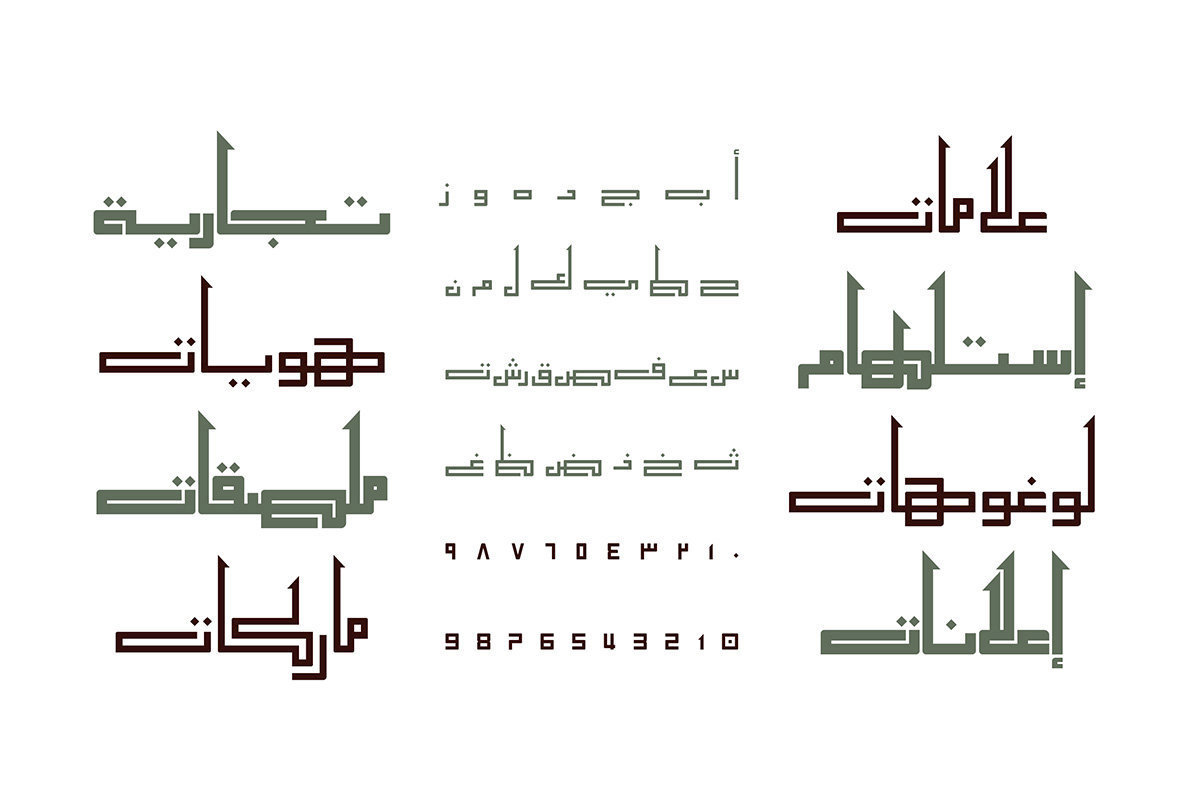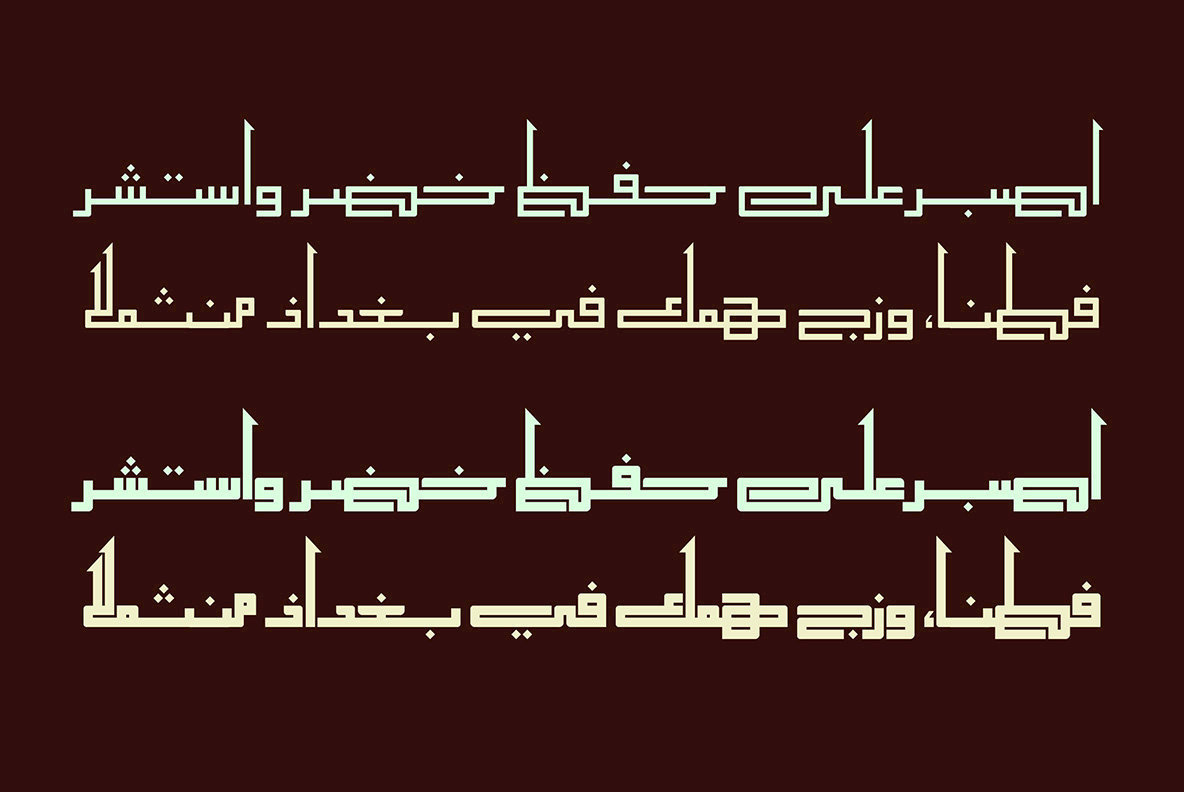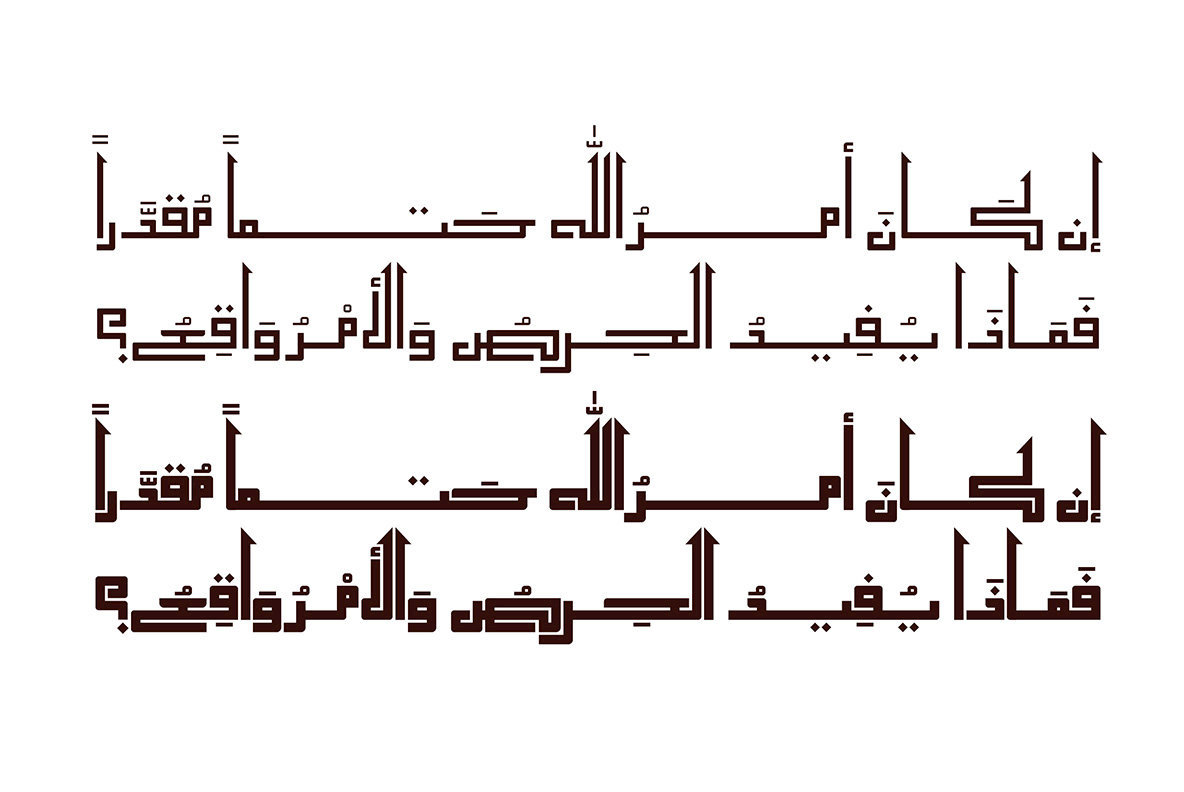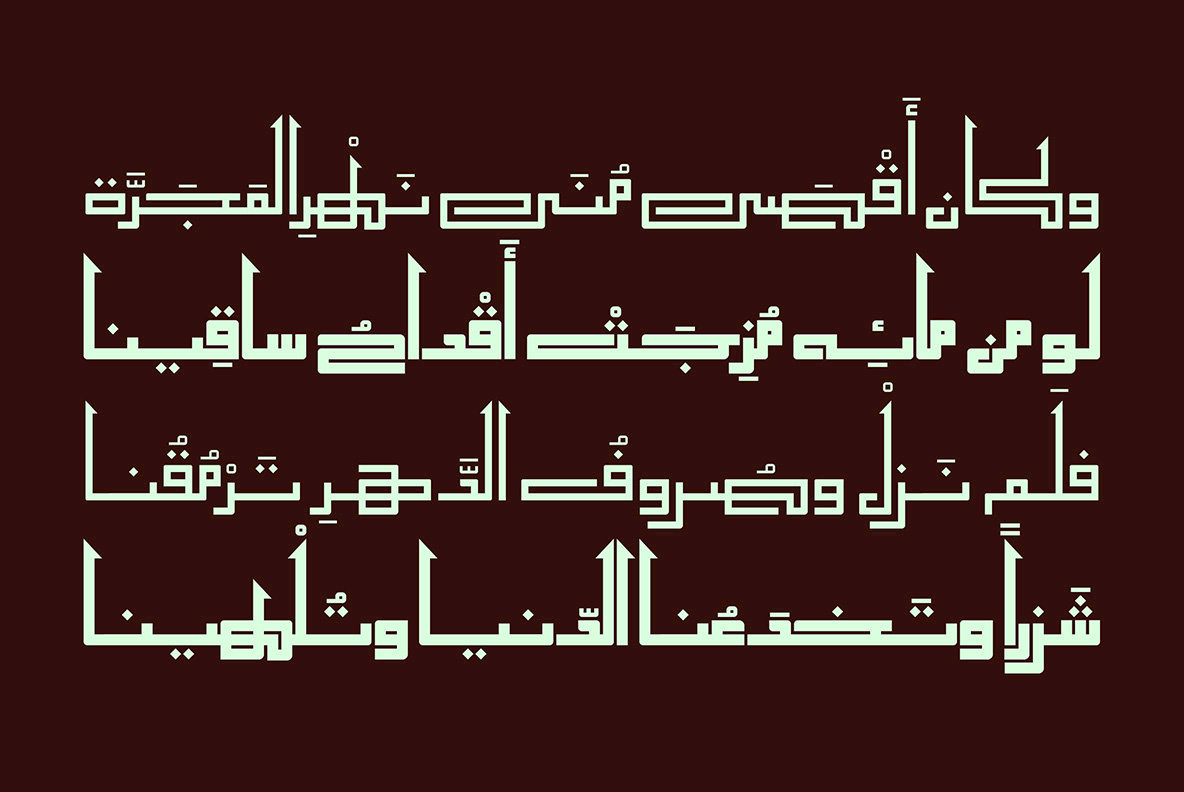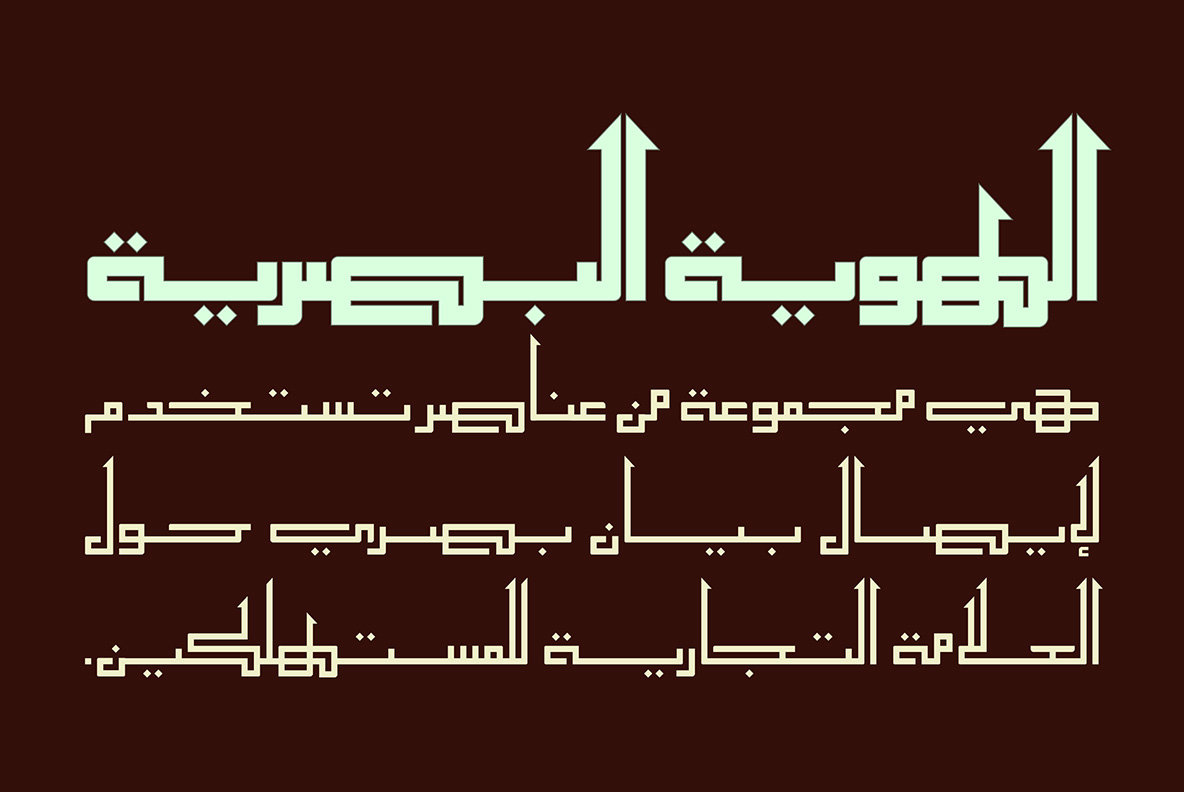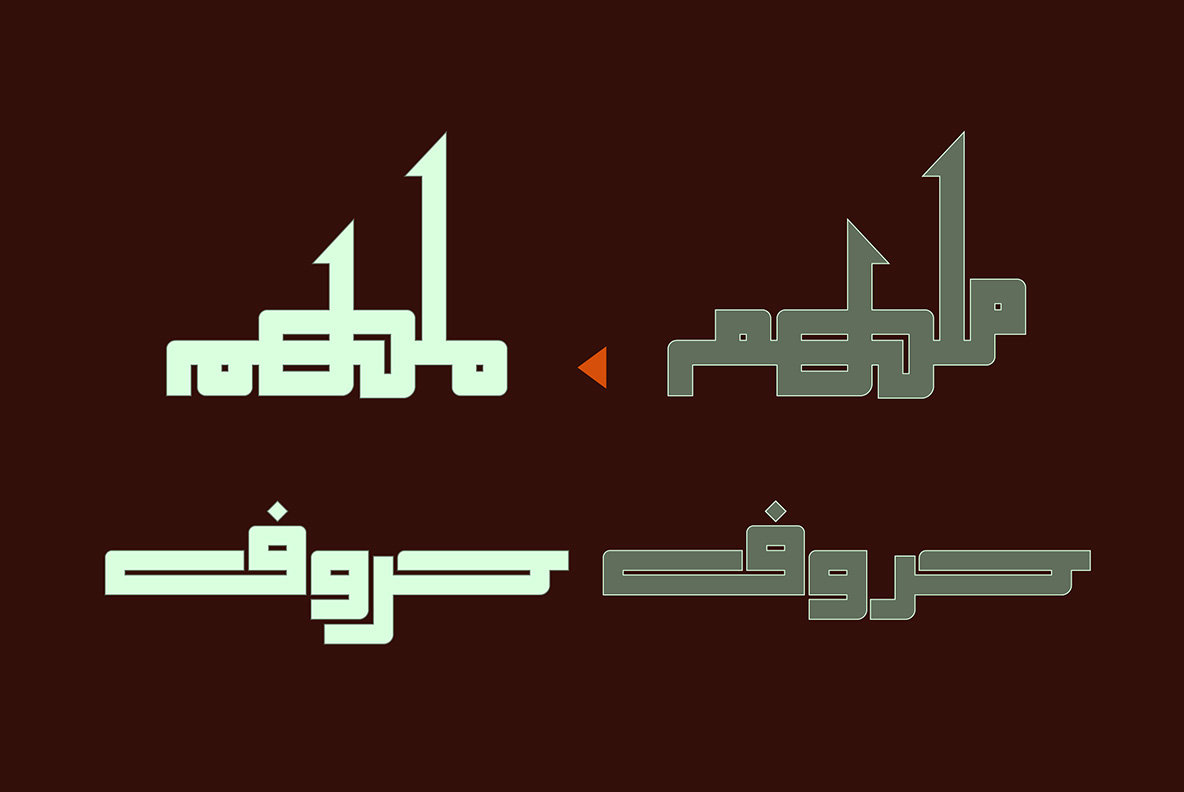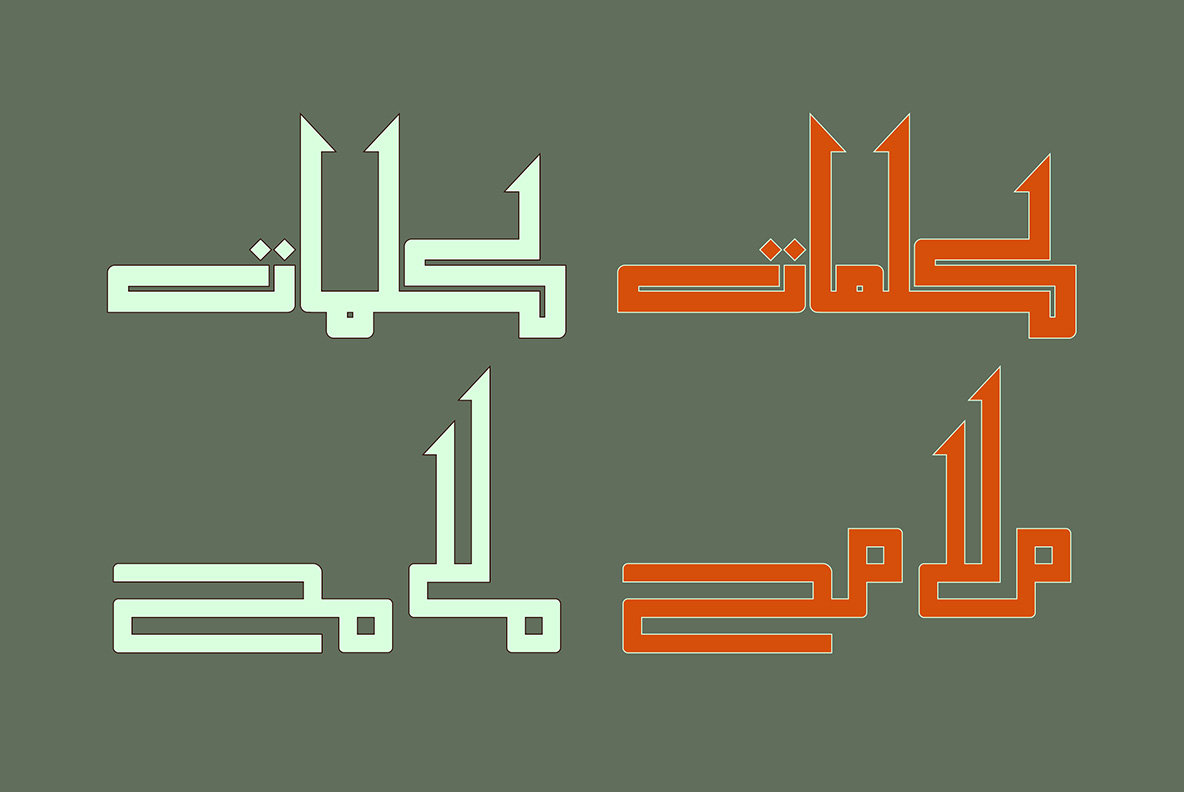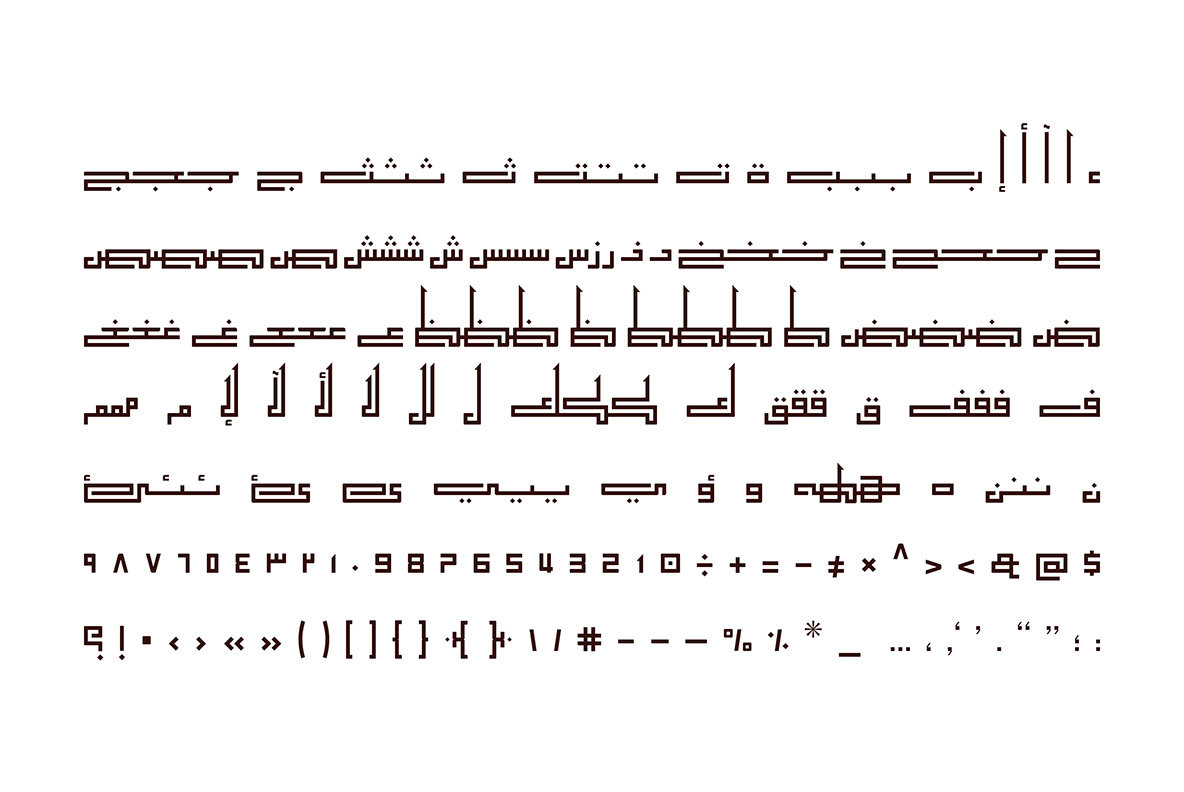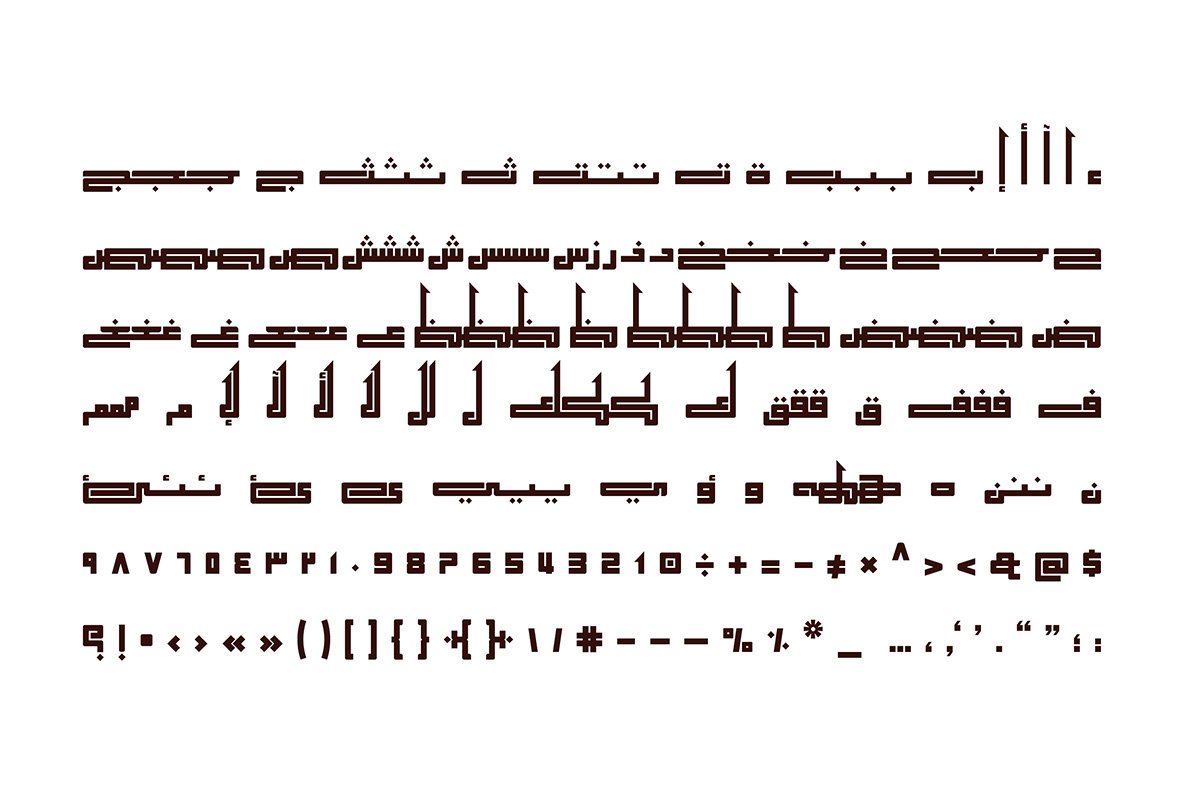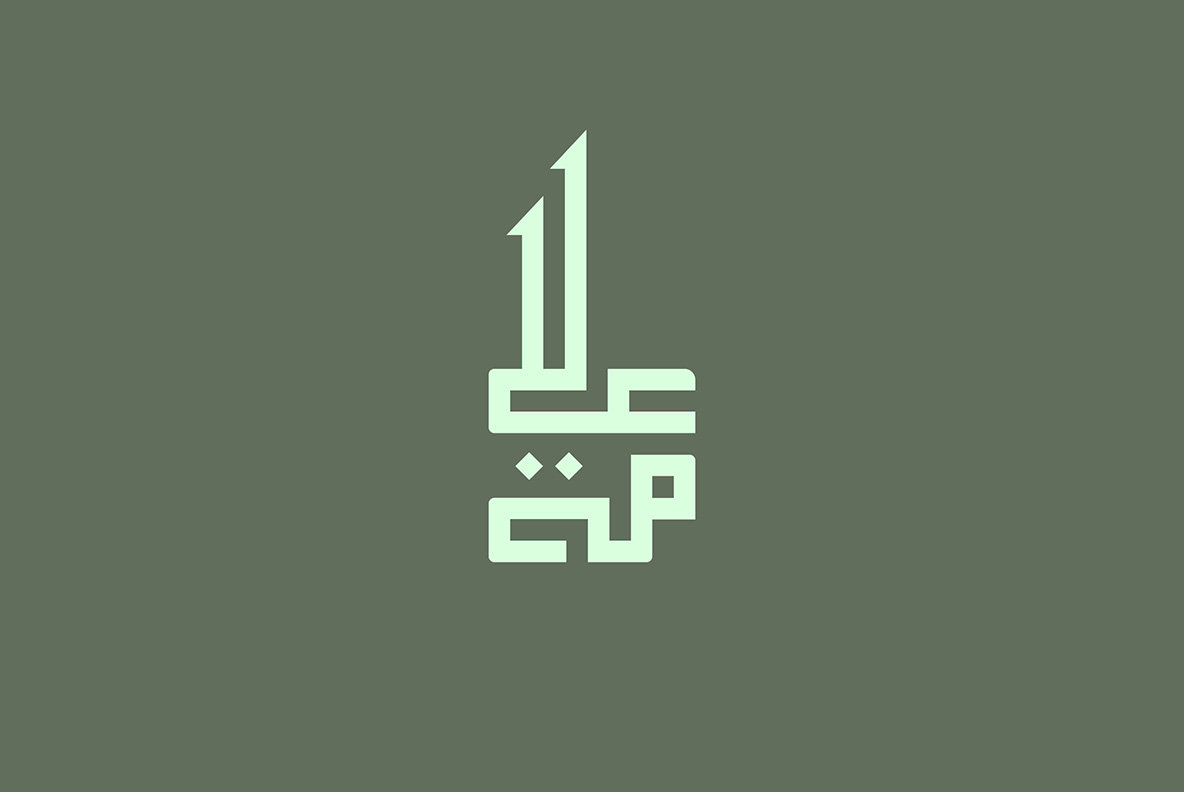
Alama is an Arabic display font. The word Alama is the Arabic for sign, label or logo. This font is designed specially for branding and visual identities, but it also suits typographic compositions. It comes in two weights; Regular and Bold.